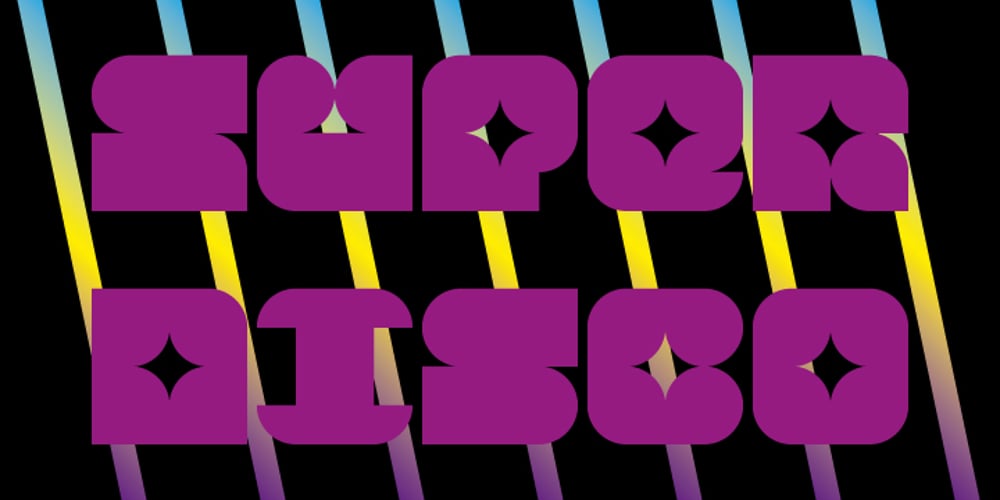
Module 4-4
Module 4-4 font
Module 4-4 Font Family was designed by published by Sébastien Truchet. Module 4-4 contains 1 styles and family package options. Sébastien Truchet designed a modular typographic system during his last year in the School of Fine Arts of Besançon. The system is made of a unique grid and 6 modules which are the components to build several typefaces. The most radical is the “2-2”. The last one is the “10-12”. This is the 4-4. It is built into a square grid. Four modules in width and in height. This font proposes to you two appearances : the caps are blackest and the small letters are more open.